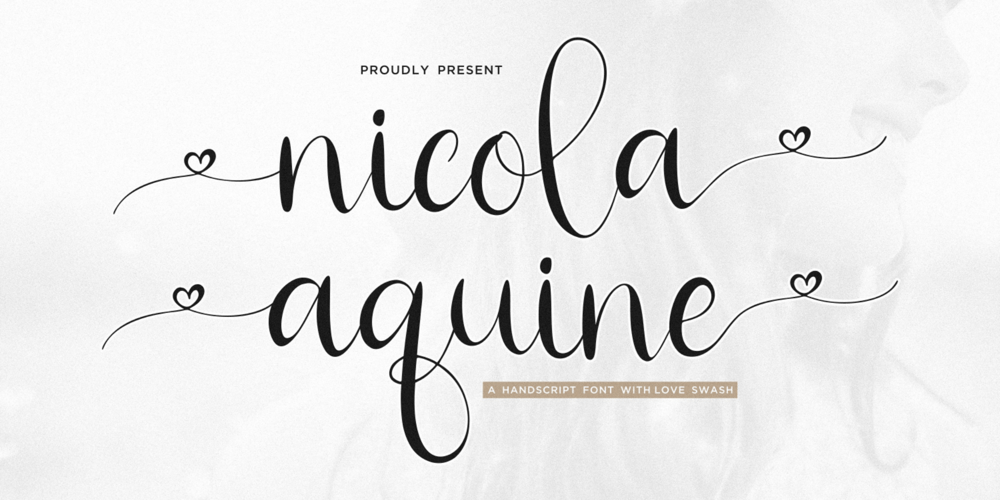
Nicola Aquine Font Family was designed by Sulthan Mada Maulana Tsani and published by Essentials Studio. Nicola Aquine contains 1 styles and family package options. Nicola Aquine is a modern handwritten font featuring love swashes and alternates. It is perfect for product packaging, branding project, magazines, social media, weddings, or just used to express words above the background.This font is PUA encoded, which means you can access all of the glyphs and swashes with ease!